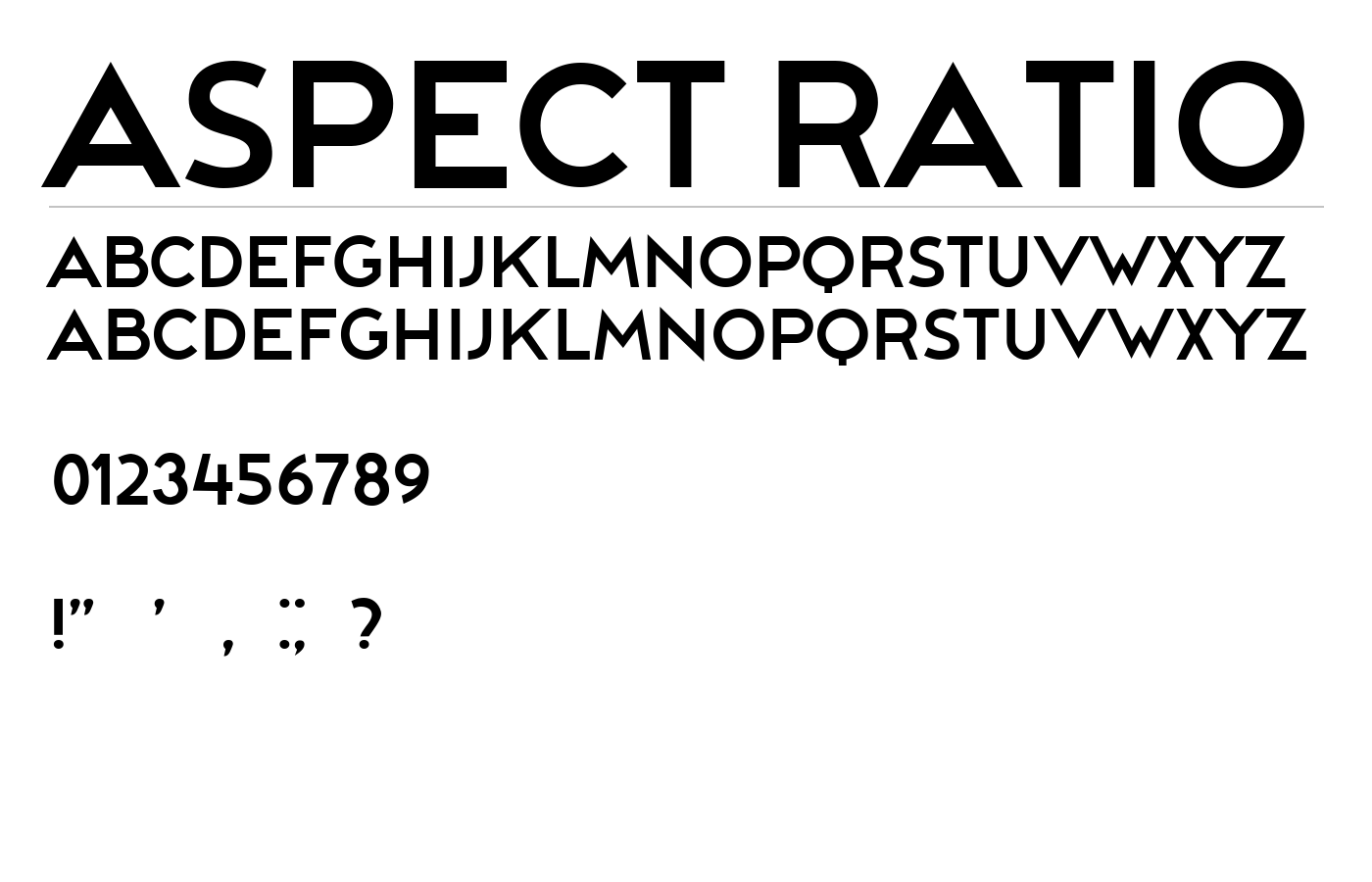
Aspect Ratio is a clean, modern sans serif font with a slightly condensed width and a medium weight, giving it a strong yet elegant presence. Its geometric letterforms feature subtle angular details, single-story 'a' and 'g', and consistent stroke widths that create a sleek, contemporary feel perfect for stylish headlines, branding, and editorial design. This font works well where clarity and a refined, modern aesthetic are needed, making it ideal for logos, magazine titles, and digital media.
Aspect Ratio Font
About Aspect Ratio Font
| Font family | Aspect Ratio Font |